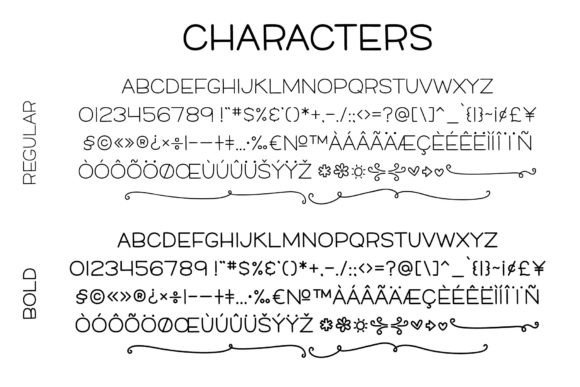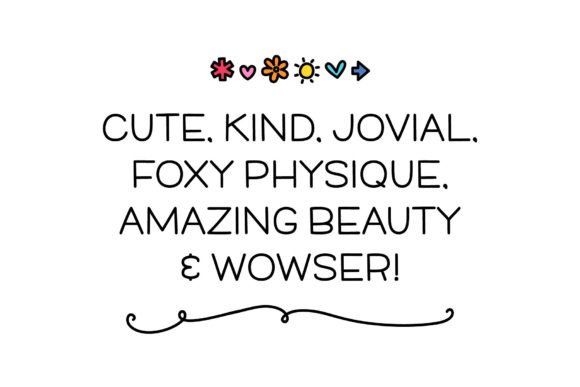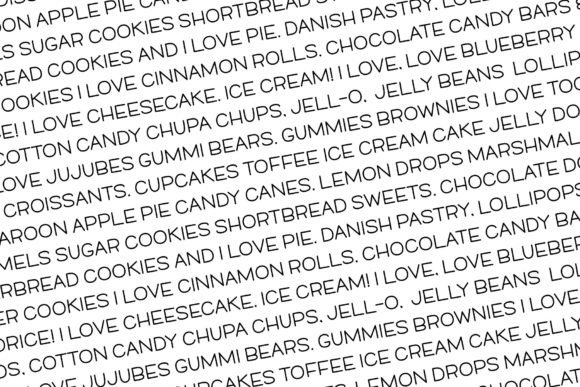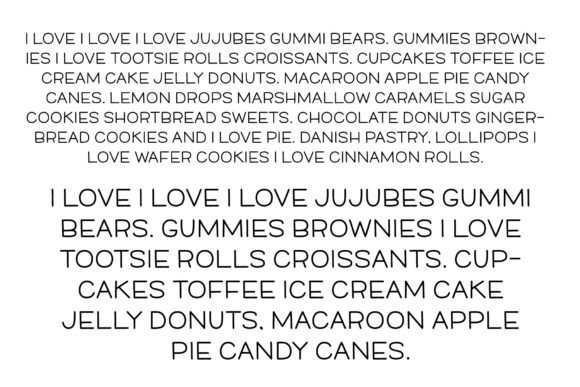
Introduction to Hello My Name is Font
Hello My Name Is font is perfect for those handwritten notes of yours, stationery, planners, and much more.
Includes 11 super cute doodles to spruce up your design projects .
Hello My Name is Font offers exceptional quality and versatility, making it a valuable addition to your design toolkit. Whether you’re creating for personal projects or commercial use, Hello My Name is Font delivers professional results.